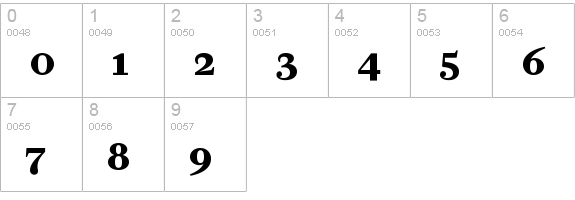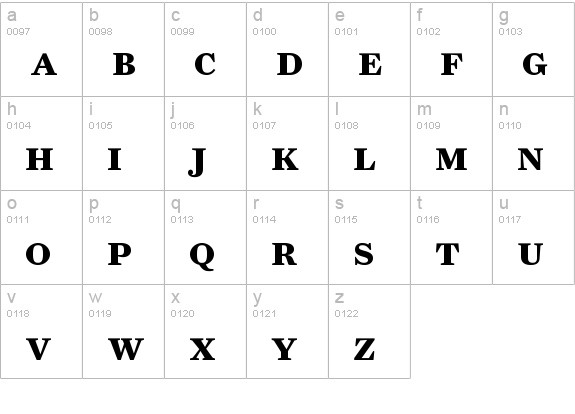
FarnhamDisplay-BoldSC font is a bold and stylish typeface that exudes elegance and sophistication. Its sleek and modern design makes it perfect for a wide range of design projects, from branding to advertising to packaging. The unique small caps feature adds a touch of luxury to any text, making it stand out from the crowd. The sharp and clean lines of this font give it a professional and polished look, making it ideal for corporate use as well. What's even better is that FarnhamDisplay-BoldSC font is available for free download at FontsMarket.com. So you can easily access this high-quality font and use it in your projects without any cost. Don't miss the opportunity to enhance your designs with this beautiful and versatile typeface. Download FarnhamDisplay-BoldSC font today and take your designs to the next level!